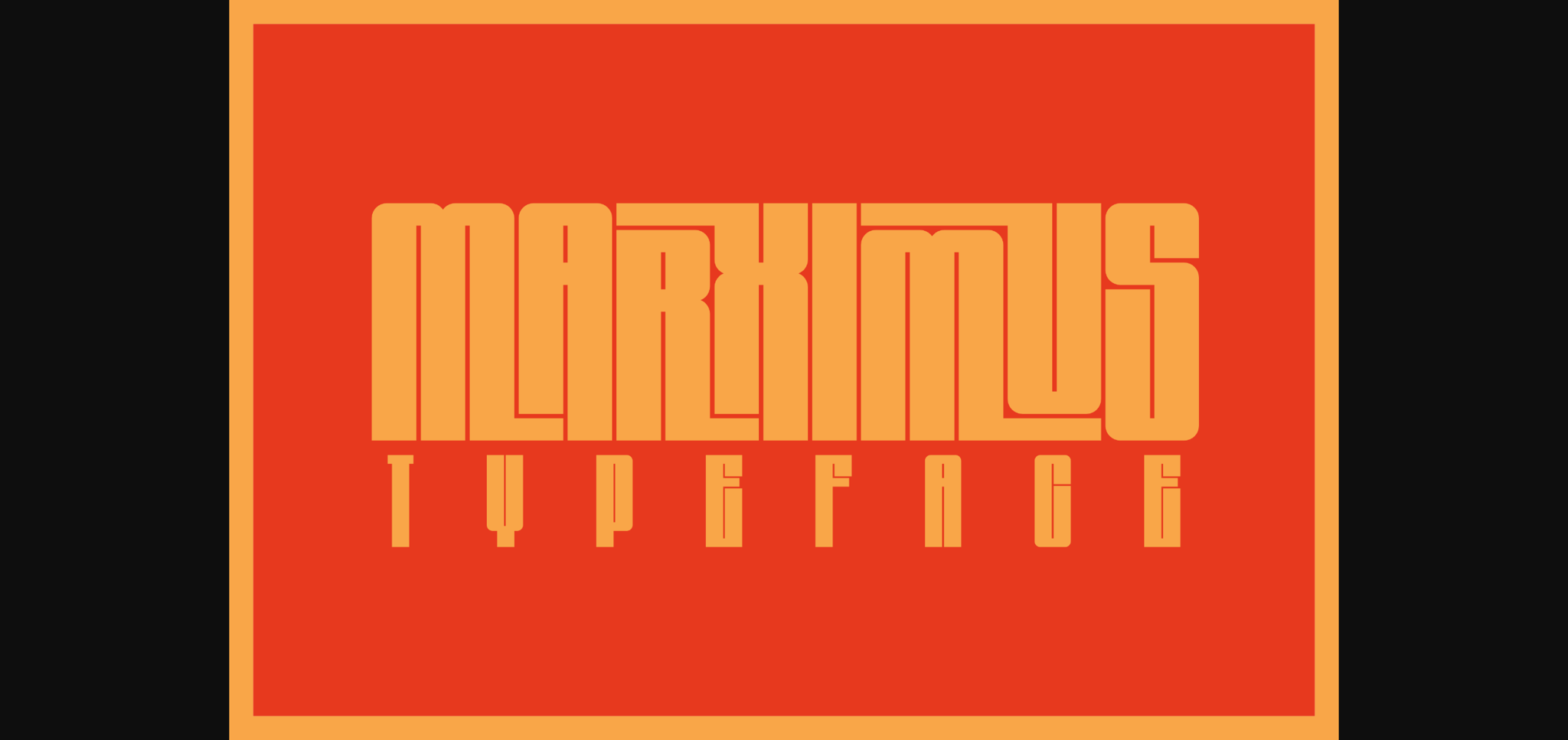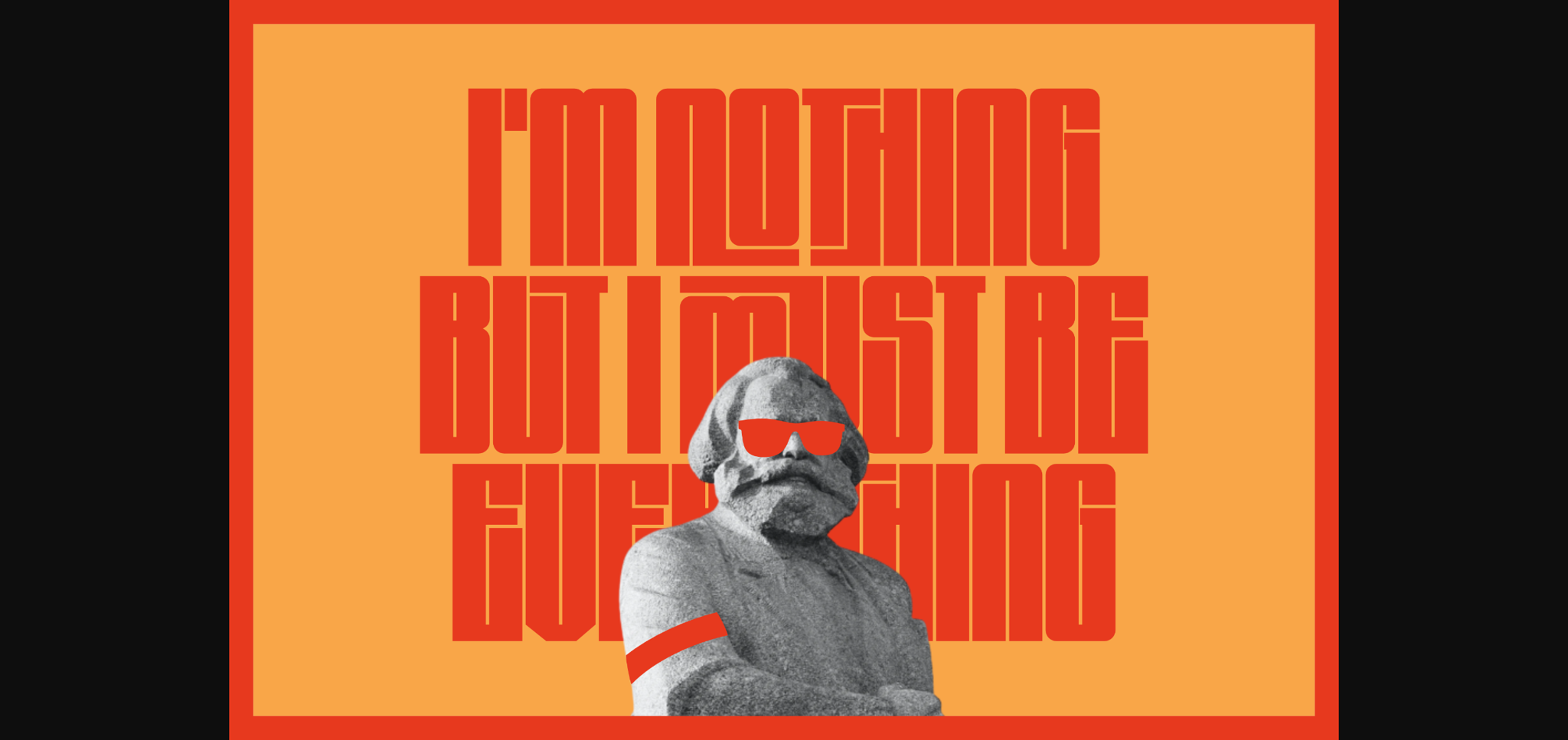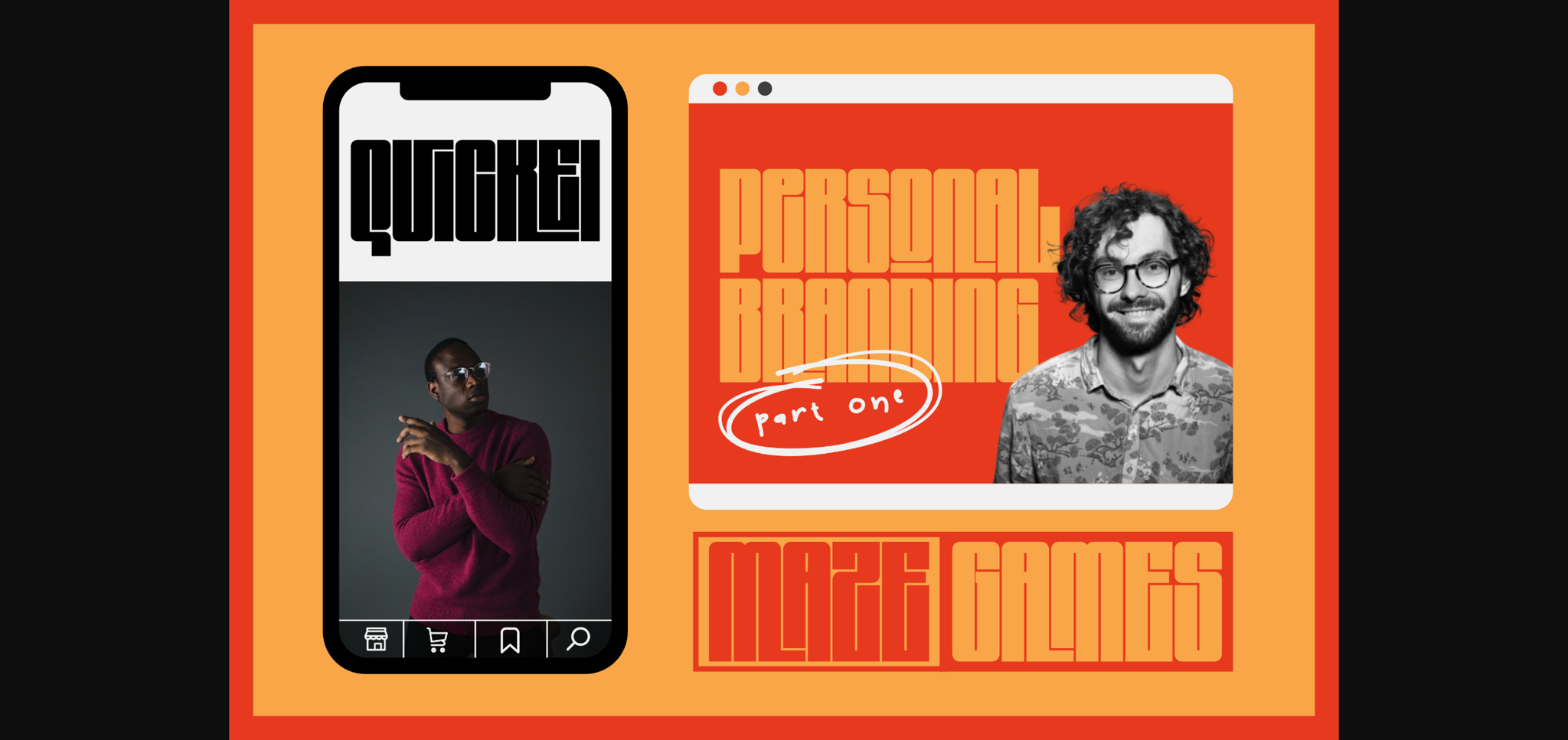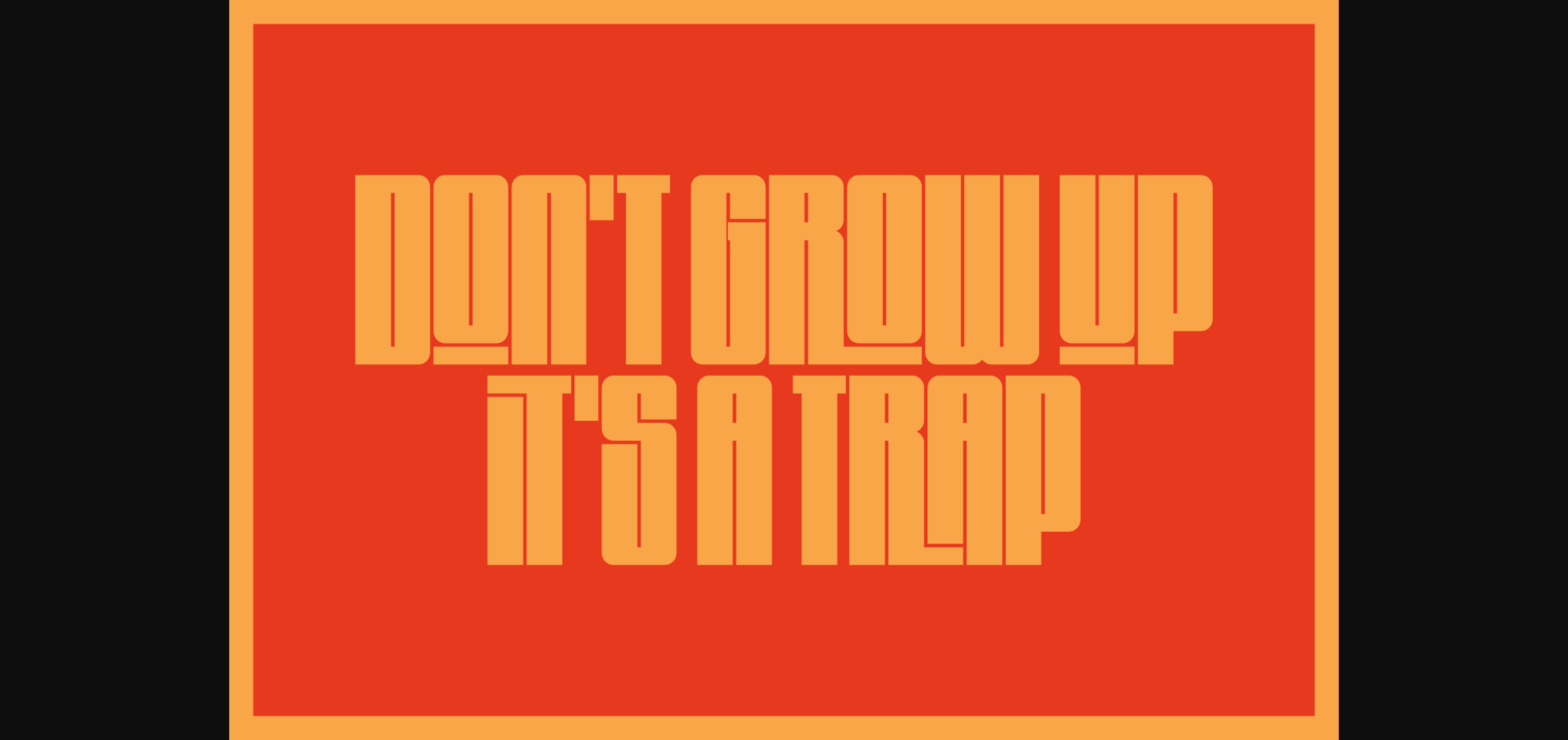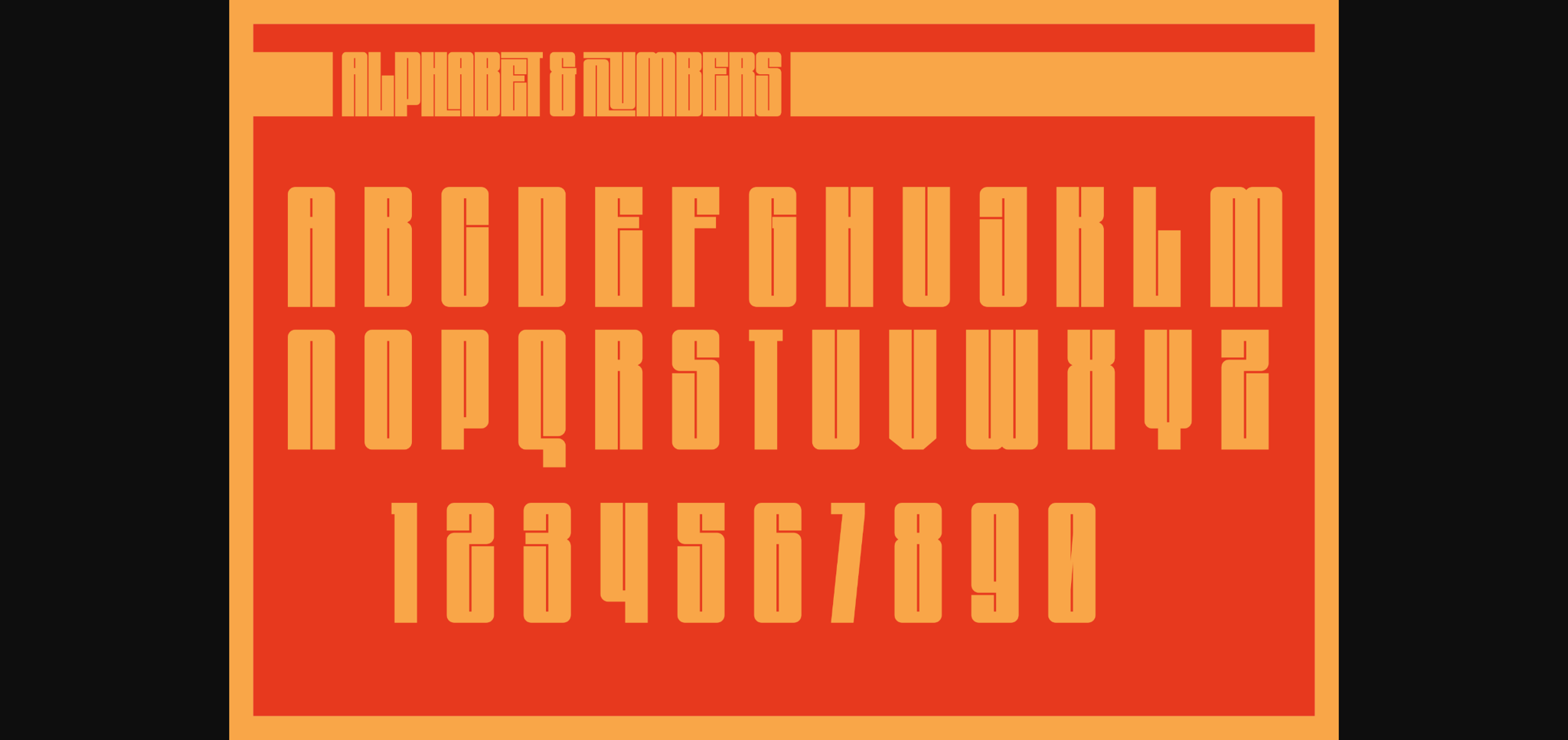
About Marximus Font
Marximus is a bold sans serif font with exciting characters. with simple condensed blocky design and a lot of ligatures, make it perfectly suited for a wide variety of projects like posters, book covers, apparel, merchandise, book cover, social media project and branding, and many more. Add this font to your project, and it will be stunning!